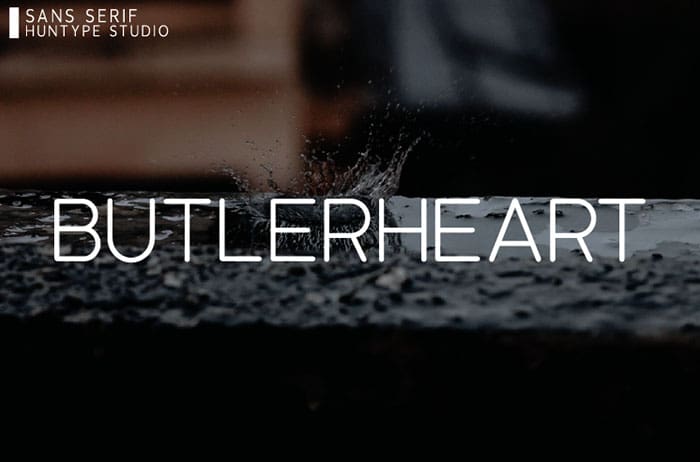
Butlerheart Sans Serif Font
Butlerheart is a distinct and modern sans serif font. It will complement any design need perfectly with its perfectly balanced mix of smooth and sharp! Thanks to Mas Anis for sharing this awesome font! Take a look on this portfolio for more of his stunning fonts.